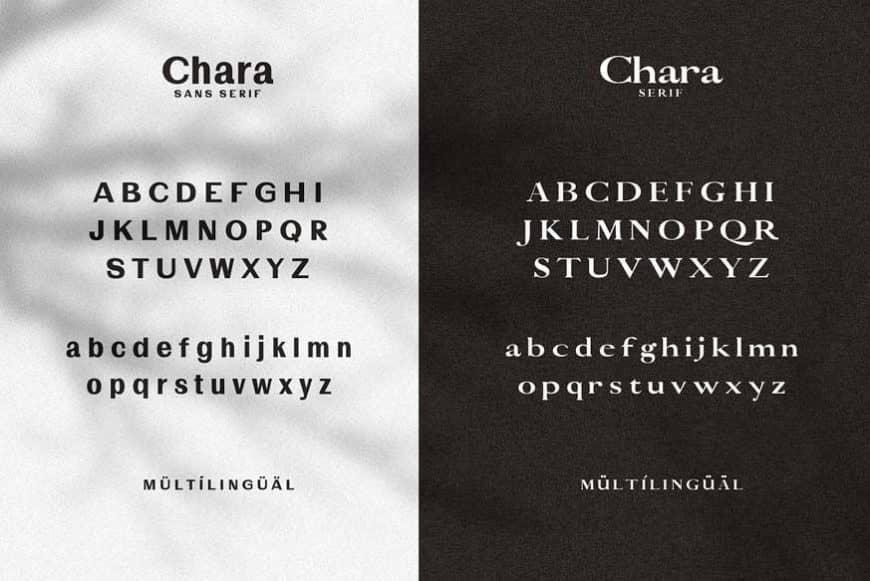
Chara Sans Serif & Serif Font Duo
Chara Sans Serif & Serif Font Duo is a new Sans Serif Font that combines the Chara Sans (Sans-Serif) and Chara Serif font families (Classic Serif). There are nearly 303 glyphs in the typeface. Chara Sans (Sans-Serif) – OTF, TTF, WOFF and Chara Serif (Classic Serif) – OTF, TTF, WOFF fonts are available. The typeface is an excellent choice for creating stunning classical work. The font is encoded in pua.
This Font supports the following languages: Basque, Catalan, Cornish, Croatian, Czech, Danish, Dutch, Embu, English, Esperanto, Estonian, Faroese, Filipino, Finnish, French, Galician, German, Hungarian, Icelandic, Indonesian, Irish, Italian, Malay, Maltese, Manx, Maori, Meru, Morisyen, North Ndebele, North Ndebele Norwegian Bokmal, Norwegian Nynorsk, Nyankole, Oromo, Polish, Portuguese, Romansh, Serbian, Slovak, Slovenian, Spanish, Swedish, and Swiss German. The font is designed and published by Andrew Pixel. The font is uploaded on August 21, 2019. The Font is compatible with Windows, Apple/Mac, Linux, Cricut, Silhouette, and other cutting machines. It’s simple to convert the lovely typography to a web font.
The font combination aids in the creation of aesthetic designs and is suitable for large display titles, logos, and short paragraphs. Perfect for a variety of branding and marketing projects. You may combine them in an infinite number of ways to create one-of-a-kind lockups. The font is also a great choice for people who do regular blogging.